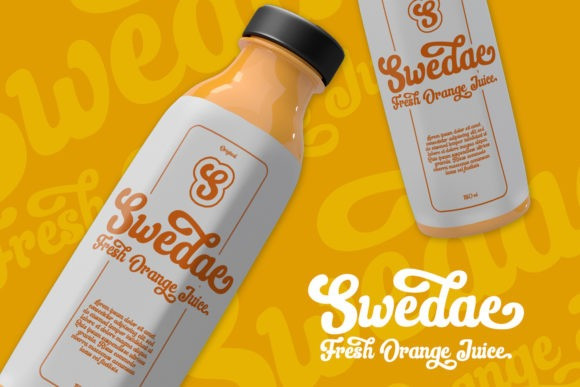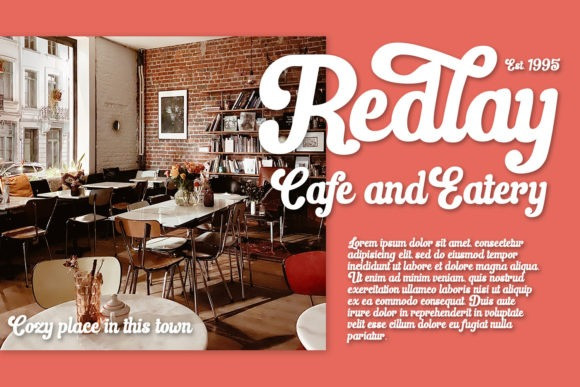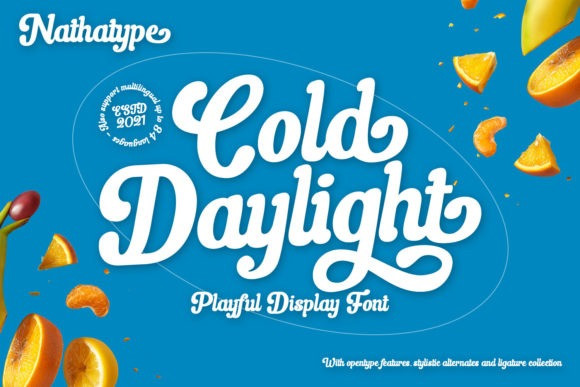
Cold Daylight Font
Cold Daylight Script Font is a bold and modern handwritten font with the perfect characters to create a unique appearance! Use this font to add a touch of playfulness, cheerfulness, and style to your beautiful ideas! This font is PUA encoded which means you can access all of the glyphs and swashes with ease!